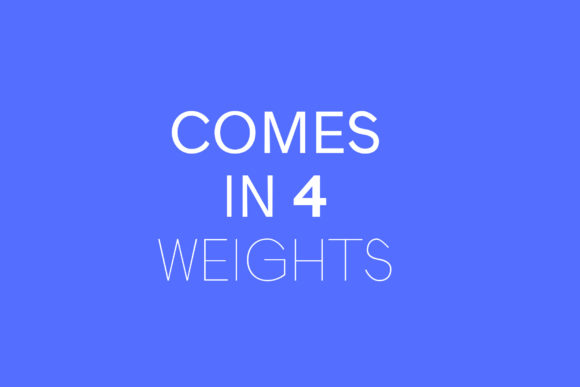
Introduction to Sans Essential Font Font
Fonts play a crucial role in design, and the Sans Essential Font font is a typeface that brings both character and versatility to any project. Whether you’re working on a branding project, a website, or a print design, the Sans Essential Font font offers a unique style that can elevate your work.
Sans Essential is a simple yet elegant font.
Its fun style makes it perfect for use in any designs .
Key Features of Sans Essential Font Font
Why Choose Sans Essential Font Font?
The Sans Essential Font font is more than just a typeface – it’s a design tool that helps you communicate your message with style and clarity. Its unique character set and versatile design make it suitable for a wide range of applications, from elegant invitations to bold headlines.
With its carefully crafted letterforms and balanced proportions, the Sans Essential Font font ensures readability and visual appeal across all mediums.
What makes Sans Essential Font font special?
The Sans Essential Font font stands out with its unique design, exceptional readability, and versatility across various design applications.